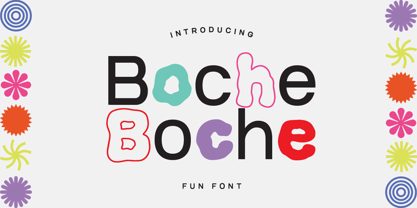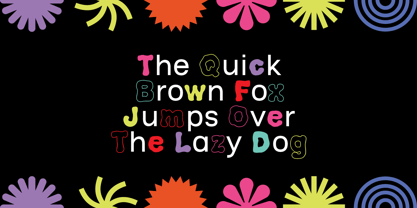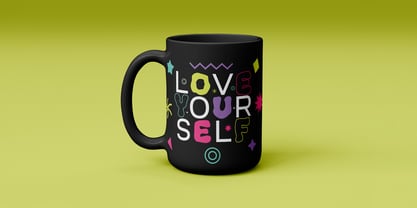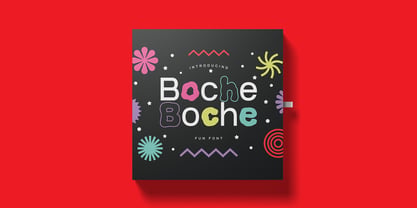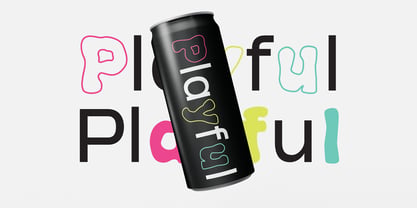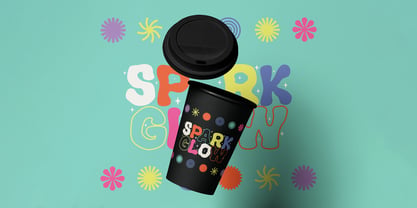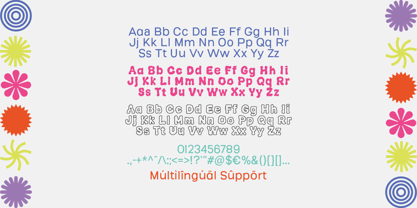
Boche
The Boche Font Family was designed by Iqbal Pauji and published by Typebae. Boche contains 1 styles. More about this family
Boche is a playful sans serif font created to add joy and personality to your designs. Featuring a variety of fun alternate characters, Boche allows you to mix and match letterforms for a unique and expressive look that feels fresh and lively. Perfect for logos, branding, posters, packaging, social media graphics, and other creative projects, Boche brings a fun, modern, and approachable character to any design. Included: - Uppercase, lowercase, numerals & punctuation - Fun alternate characters - Multilingual support - PUA Encoded